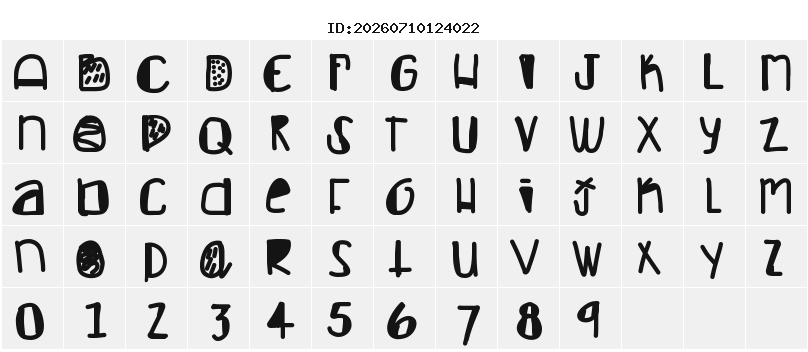
FeelinLikeGold Preview
About FeelinLikeGold.ttf
FeelinLikeGold.ttf is a modern, elegant sans-serif font designed for ultimate readability and visual harmony. Perfect for branding, headlines, web design, and print materials.